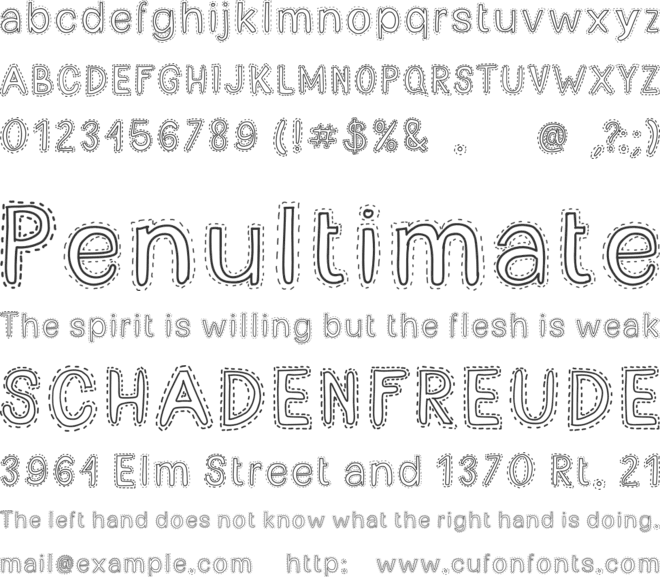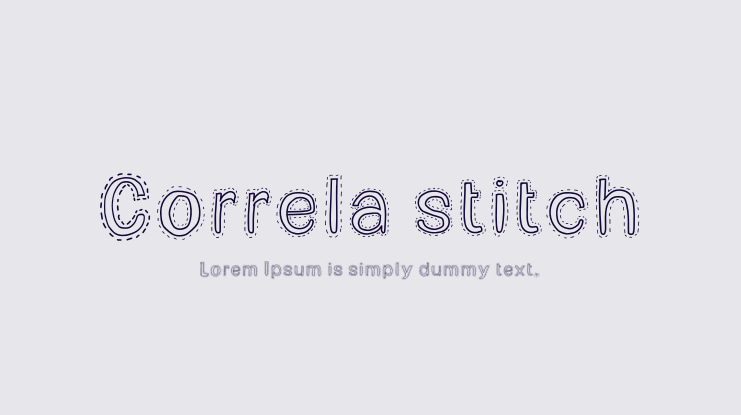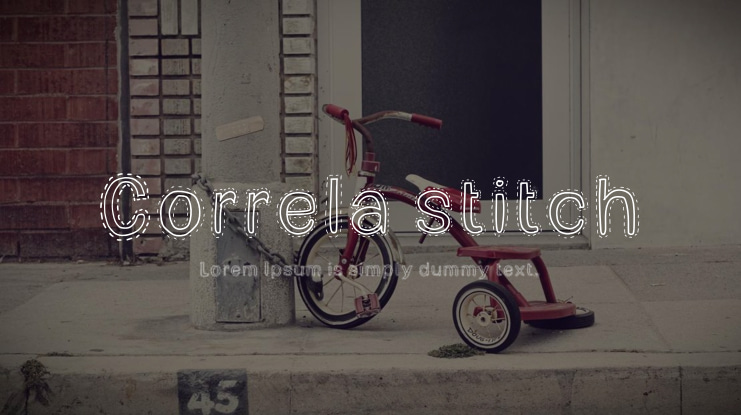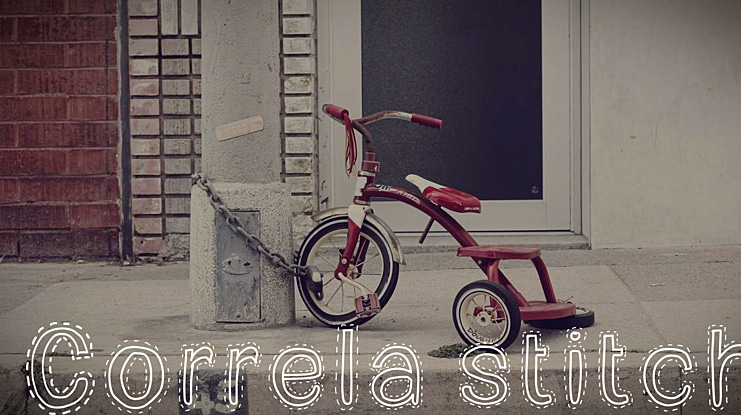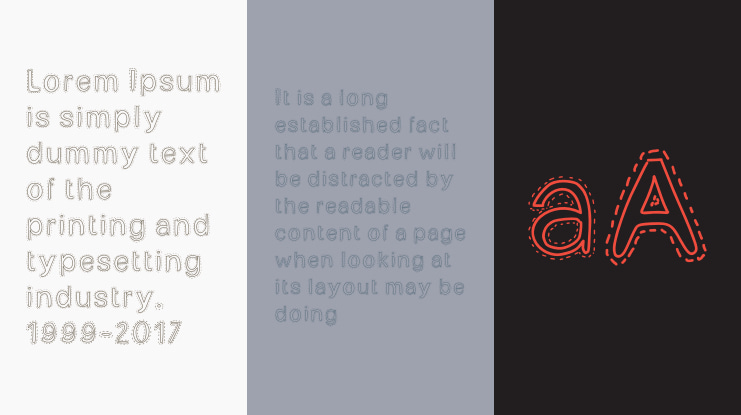
Correla stitch Font
Correla Stitch is a gorgeous handwritten font, perfect for projects that need a bold yet simple look. This faux-knit stitch font has a ton of appeal in its bounciness and movement.